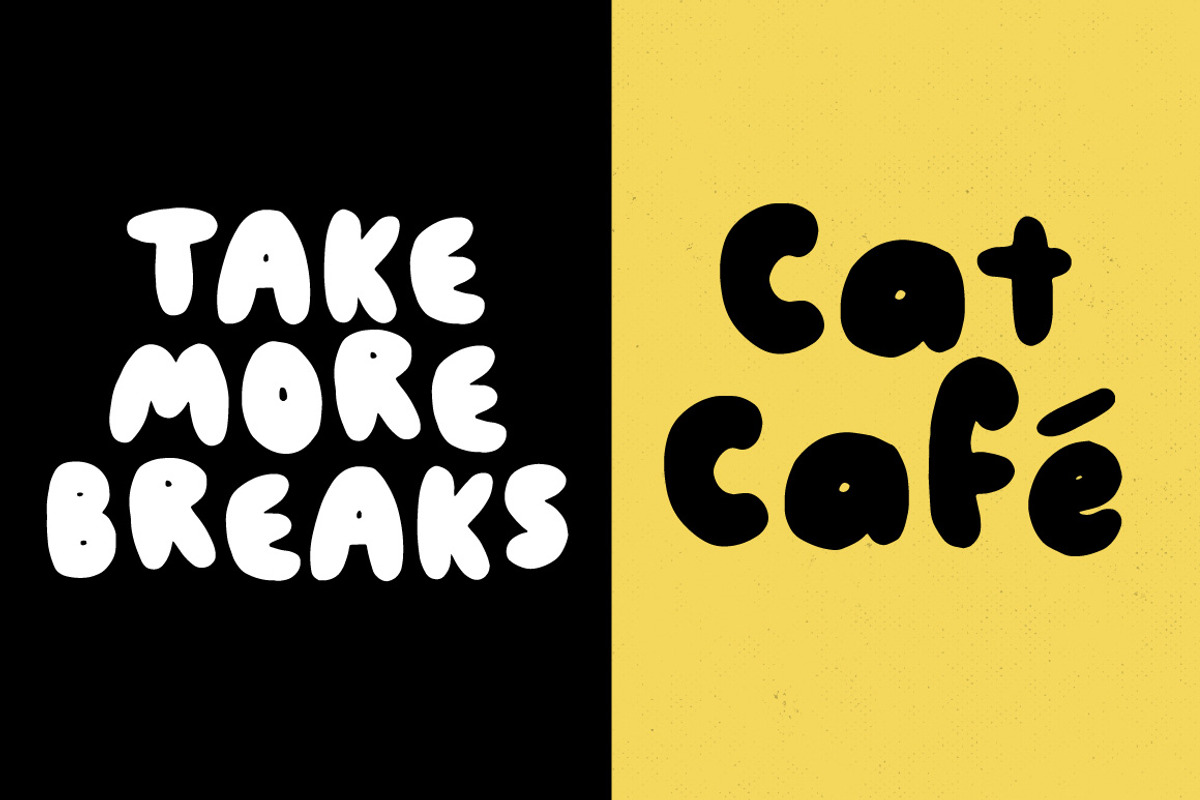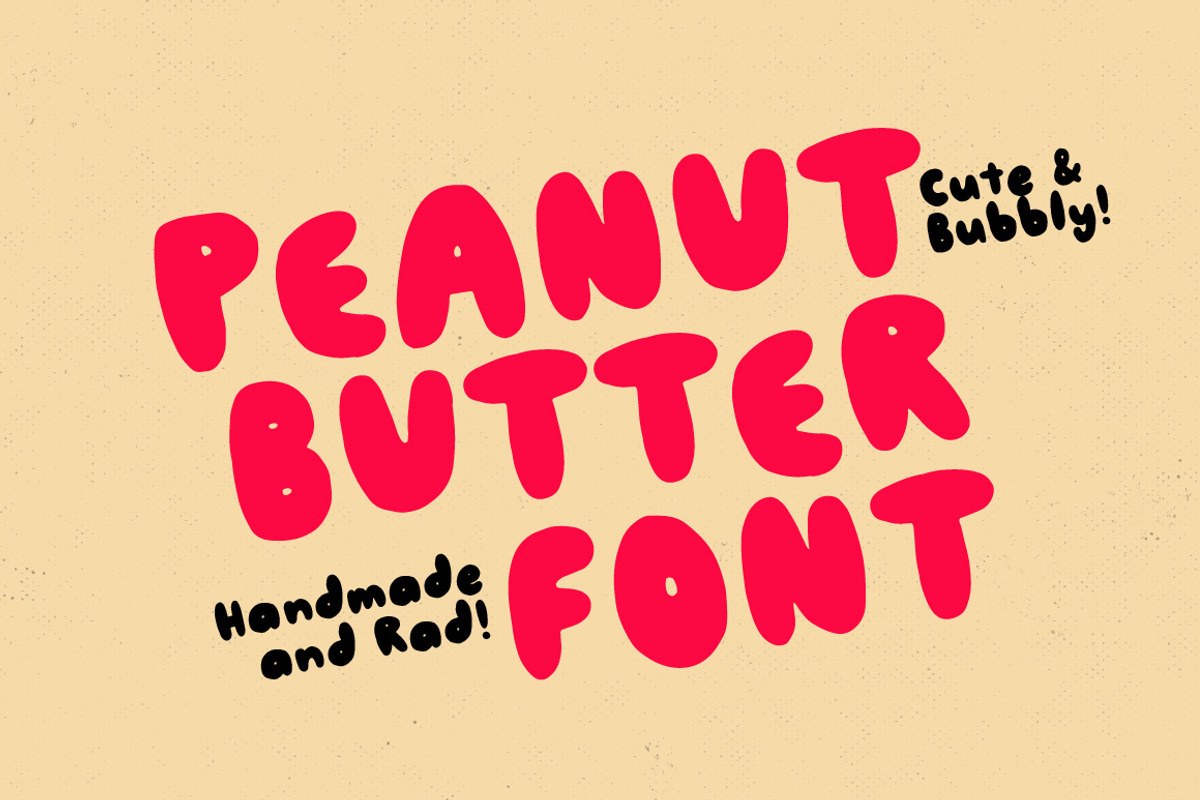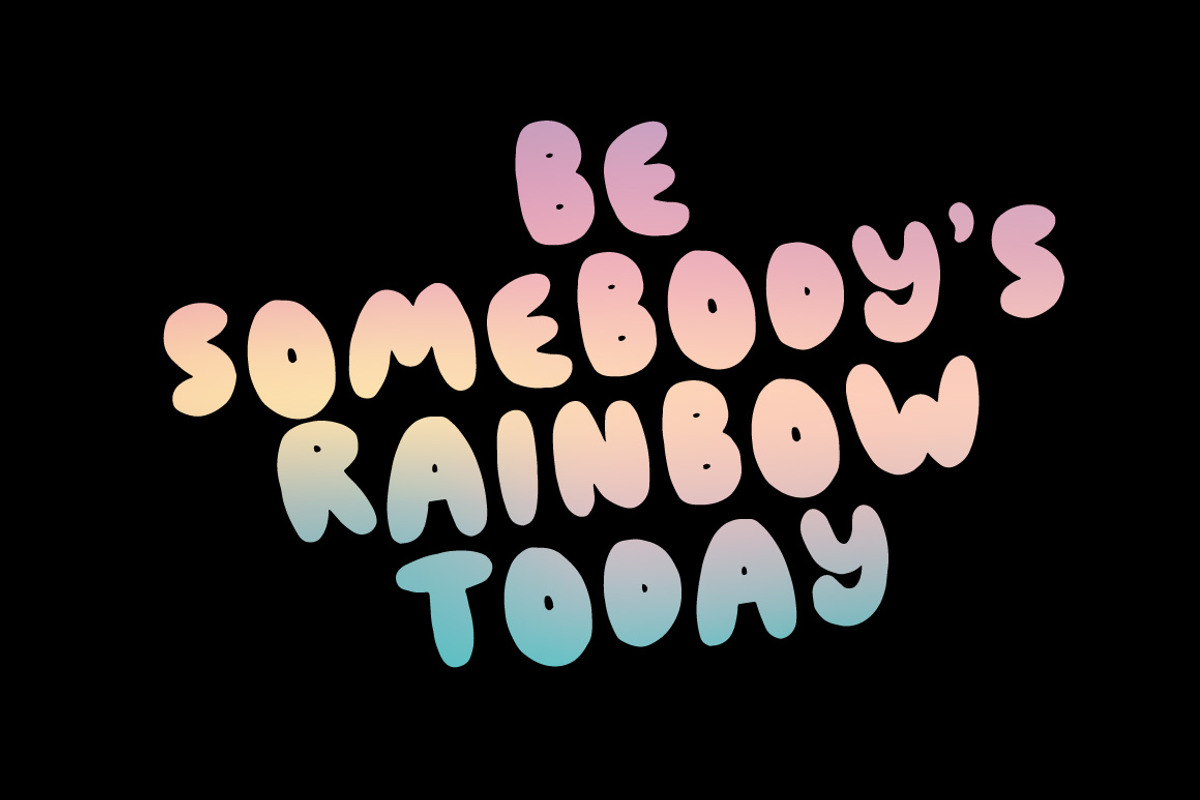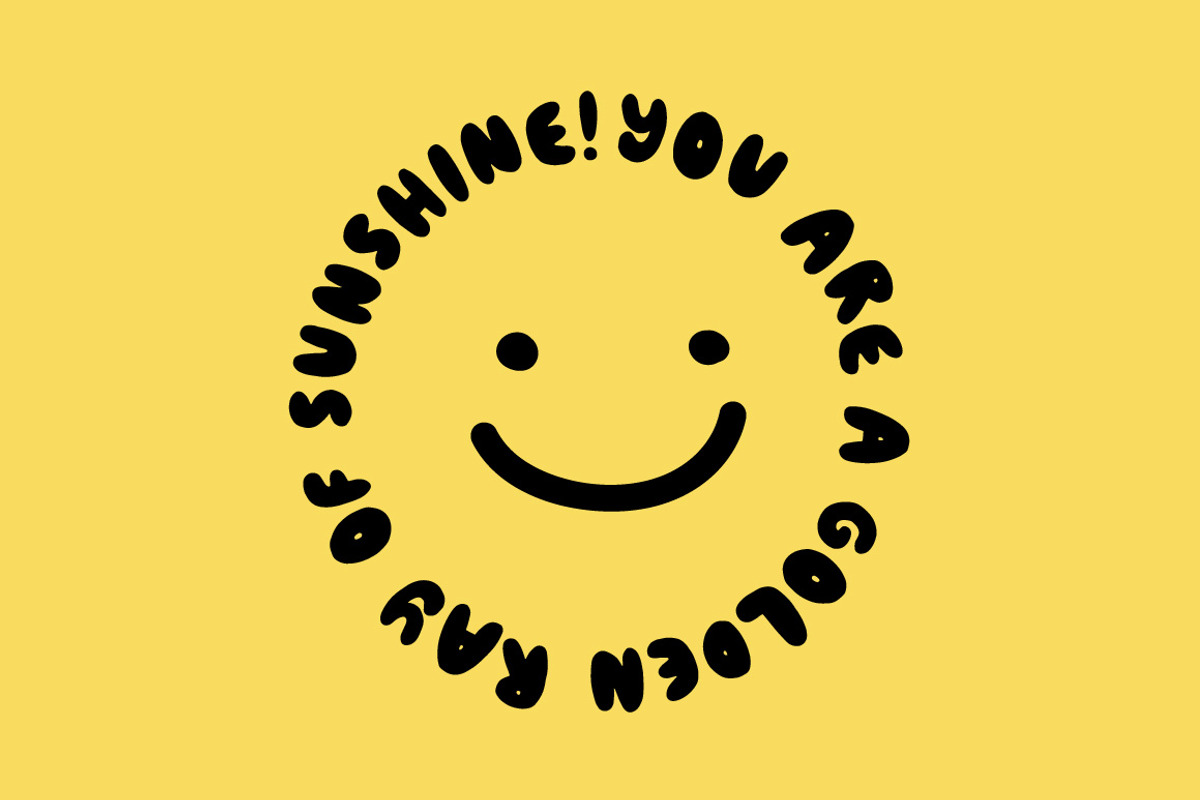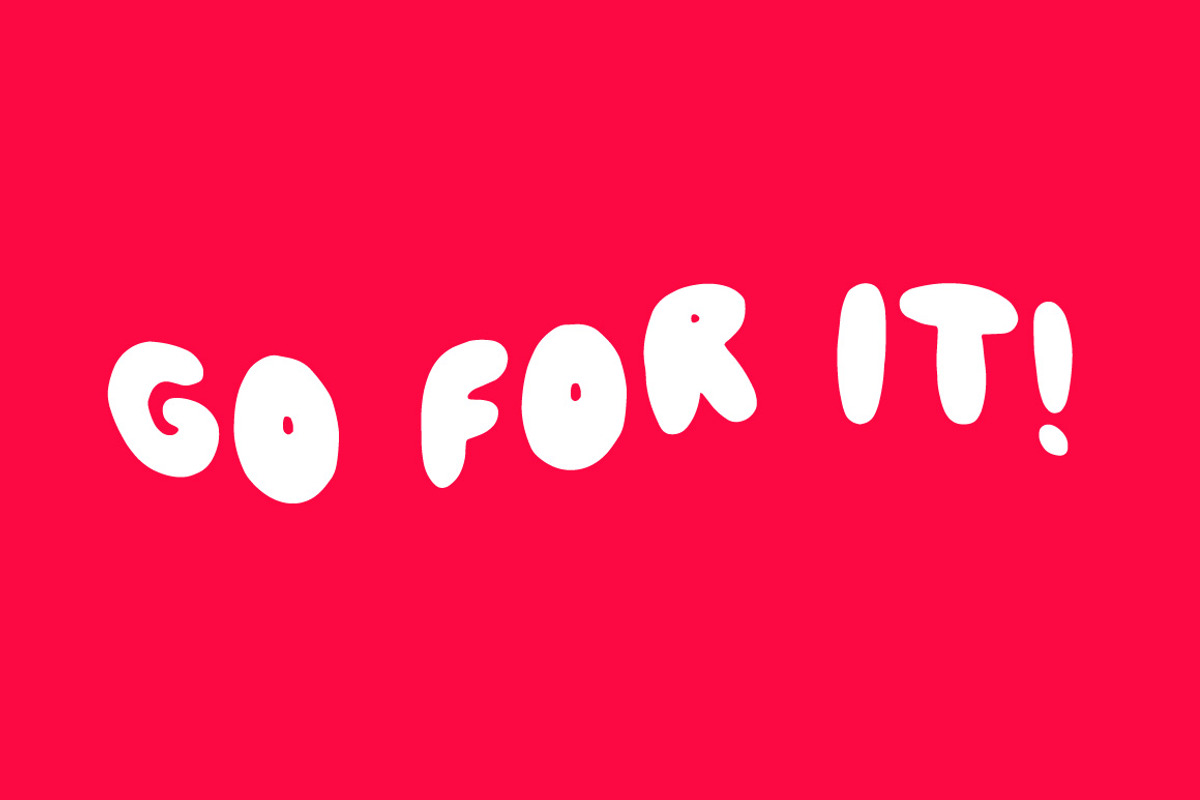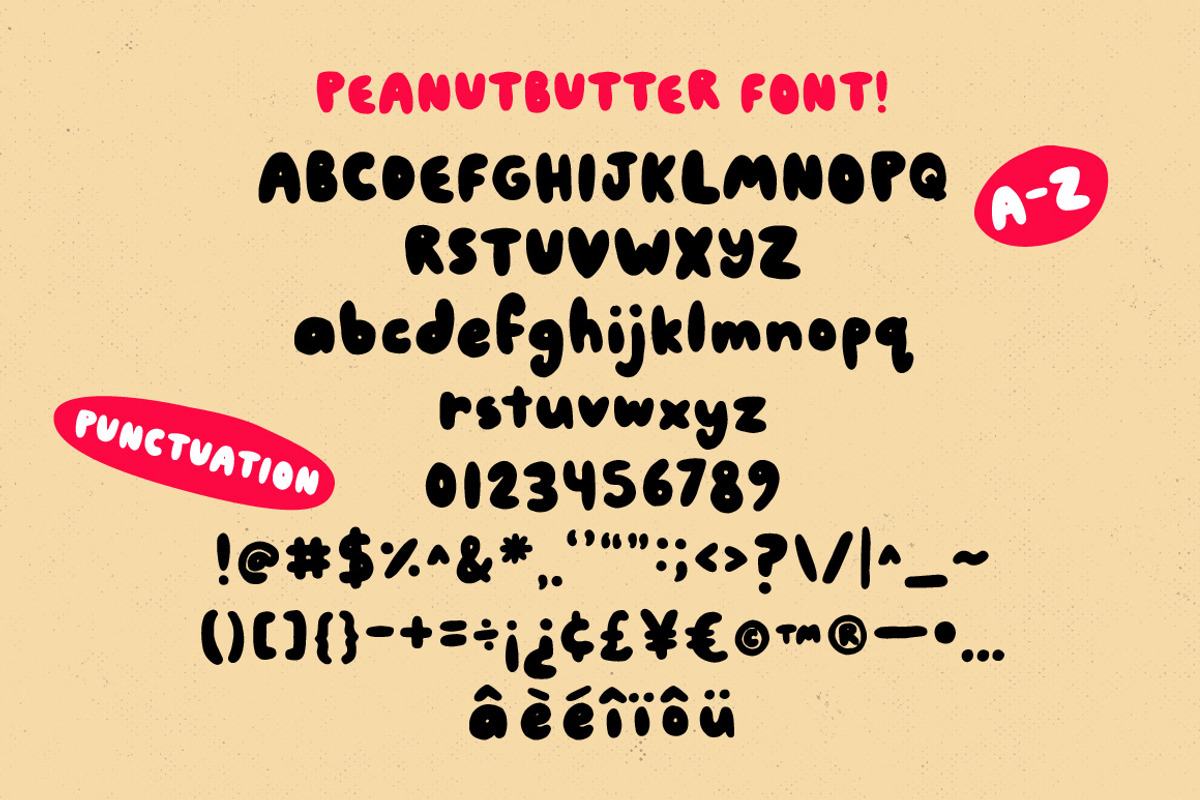
Peanut Butter Bubble Font
Please welcome Peanutbutter font! Peanutbutter is a handwritten bubble sans serif. It has tons of character and nostalgic Y2K vibes and I drew each character by hand for that satisfying handmade look. Perfect for playful and fun logos, titles, packaging, headlines and more!